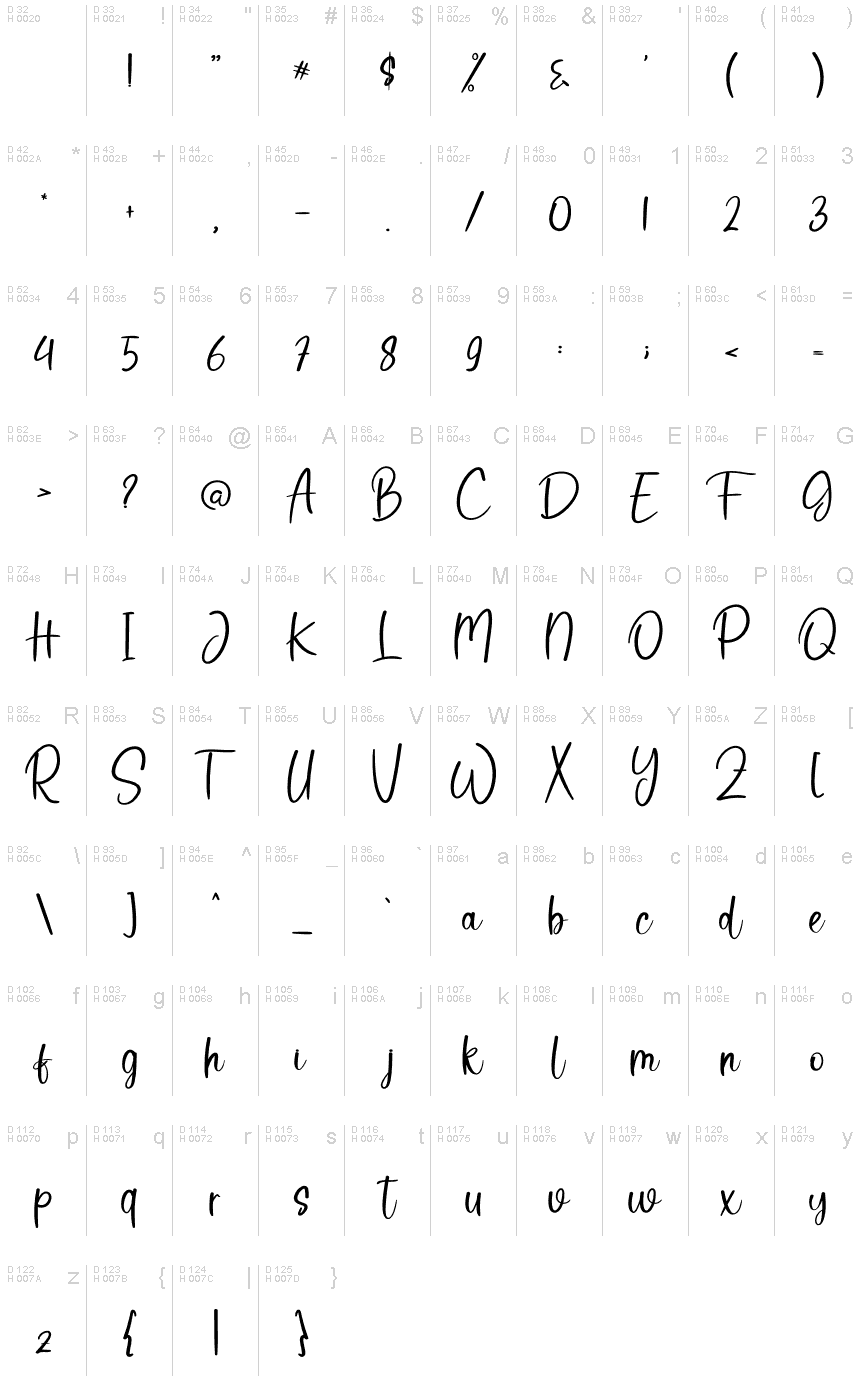
Snow, designed by Etik Fatimah, is a semi-light handwritten font that exudes charm and personality. Its fluid, organic strokes evoke the feeling of personal touch and warmth, hinting at the gentle fall of snowflakes with each delicate curve. The casual elegance of Snow makes it an excellent choice for designs seeking to convey intimacy and individuality.
With its semi-light weight, Snow strikes a balance between readability and artistic flair, making it versatile for both digital and print mediums. Whether gracing the pages of an invitation or the interface of a mobile app, this font's inviting character is sure to leave a lasting impression.
Ideal for creative projects that require a touch of whimsy without sacrificing sophistication, Snow offers designers an opportunity to infuse their work with a bespoke feel. Embrace the distinct style of Snow for your next project and watch your designs come alive with its unique handwritten appeal.